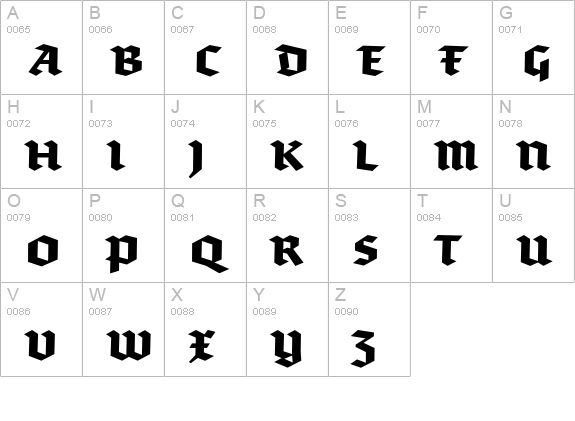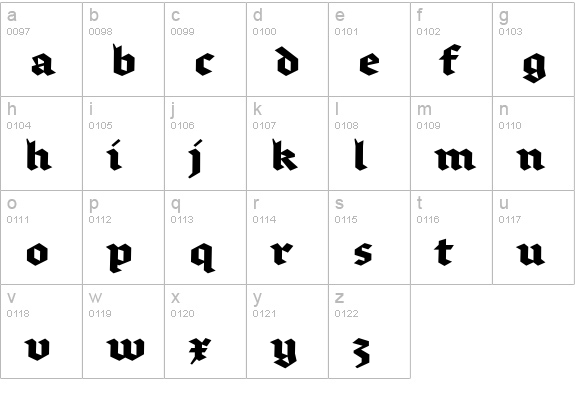
Brokenscript-Bold is a strong, high-contrast variant in the Brokenscript typeface family \xE2\x80\x94 well suited to headlines, attention-grabbing titles, and strong calls-to-action.
Brokenscript-Bold is a striking and modern display font that exudes boldness and creativity. With its unique broken script design, this font is perfect for making a statement in your designs. Whether you're working on branding, packaging, posters, or social media graphics, Brokenscript-Bold will add a touch of edginess and sophistication. The best part? Brokenscript-Bold is available for free download at FontsMarket.com. Embrace the artistic flair of this font and take your designs to the next level without any cost. Stand out from the crowd and let Brokenscript-Bold be the star of your creative projects. Download it now and elevate your design game!